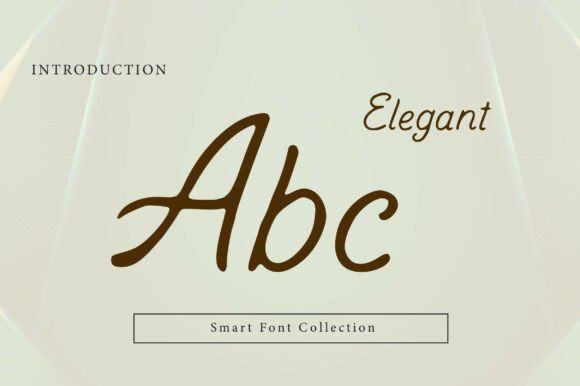
The Elegance You’ve Been Searching For: A Deep Dive into the Elegant Font
Have you ever been in the middle of a design project, everything is going smoothly, and then you hit a roadblock – finding the perfect font? I’ve been there, and it can be frustrating. Recently, I was working on a luxury branding project for a high-end fashion client, and I needed a font that exuded elegance, sophistication, and a touch of warmth. That’s when I stumbled upon the Elegant font, and it instantly became the star of the show.
First Impressions: A Love at First Sight
The Elegant font is a smooth, stylish, and modern handwritten script font designed to bring beauty, charm, and sophistication to your typography. With its flowing curves, soft strokes, and graceful letterforms, it creates a luxurious handwritten feel that is perfect for premium branding and elegant design projects. Whether you’re designing a wedding invitation, a signature logo, or an elegant product label, this font is sure to impress.
- ✨ Smooth and Elegant Lines: The font’s flowing curves and soft strokes give it a luxurious feel that’s perfect for high-end designs.
- ✅ Versatile: It works beautifully for both modern and classic aesthetics, making it a great addition to any designer’s font library.
- 💫 Natural Handwritten Rhythm: The font has a personal and refined feel that makes it ideal for designs that need a warm and classy touch.
- 🔍 Easy to Read: Despite its elegant nature, the font remains highly legible, even at smaller sizes.
While the Elegant font is incredibly versatile and beautiful, there are a few things to keep in mind:
- 🤔 Limited Use in Body Text: Due to its elegant and cursive nature, it might not be the best choice for long body text. It’s better suited for headings, short paragraphs, or highlighted quotes.
- ⚠️ Requires Attention to Kerning: As with any script font, you might need to adjust the kerning to ensure that the letters flow smoothly, especially in larger sizes or when using it for logos.
The Story Behind Elegant Font
The Elegant font was inspired by the timeless beauty of handwritten scripts. Its creator aimed to craft a typeface that feels both luxurious and personal, making it suitable for a wide range of design projects. The result is a font that combines modern style with classic elegance, perfect for designers looking to add a touch of sophistication to their work.
Q: Is the Elegant font suitable for body text?
A: While it’s beautiful and elegant, this font is best used for headings, short texts, or highlighted quotes. For long body text, a more readable serif or sans-serif font would be more appropriate.
Q: Does the Elegant font support OpenType features?
A: Yes, it supports various OpenType features, including ligatures, stylistic alternates, and glyphs. These features allow you to customize your text and add a unique touch to your designs.